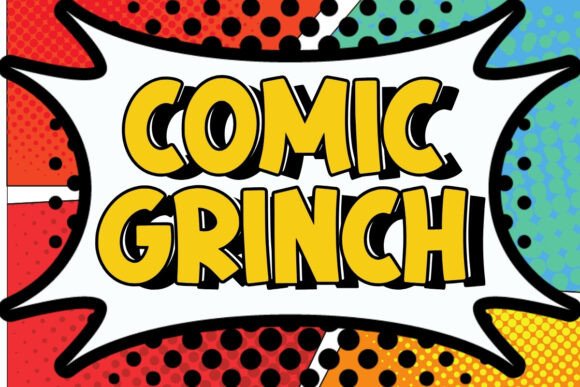
Introducing Comic Grinch Font: The Ultimate Display Font for Fun and Friendliness
Are you tired of using the same old fonts for your designs? Do you want to add a touch of fun and friendliness to your creative projects? Look no further than the Comic Grinch Font! This beautiful display font is designed to bring a smile to your face and make your designs stand out from the crowd.
What is Comic Grinch Font?
Comic Grinch Font is a unique and playful display font that is perfect for adding a touch of whimsy to your designs. With its bold and bubbly letters, this font is sure to grab attention and make your projects shine. Whether you’re working on a children’s book, a poster, or a social media graphic, Comic Grinch Font is the perfect choice.
Characteristics of Comic Grinch Font
So, what makes Comic Grinch Font so special? Here are just a few of its key characteristics:
- Fun and Friendly: Comic Grinch Font is designed to be fun and friendly, making it perfect for projects that require a playful touch.
- Bold and Bubbly: The font features bold and bubbly letters that are sure to grab attention.
- Display Font: Comic Grinch Font is a display font, making it perfect for headlines, titles, and other large text elements.
- Unique and Playful: The font has a unique and playful design that will add a touch of personality to your projects.
Benefits of Using Comic Grinch Font
So, why should you use Comic Grinch Font in your designs? Here are just a few benefits:
- Adds a Touch of Fun: Comic Grinch Font adds a touch of fun and friendliness to your designs, making them more engaging and enjoyable.
- Grabs Attention: The font’s bold and bubbly letters are sure to grab attention and make your projects stand out.
- Perfect for Kids’ Projects: Comic Grinch Font is perfect for kids’ projects, such as children’s books, posters, and activity sheets.
- Easy to Read: Despite its playful design, Comic Grinch Font is easy to read, making it perfect for large text elements.
How to Use Comic Grinch Font
Using Comic Grinch Font is easy! Here are a few tips:
- Use it as a Display Font: Comic Grinch Font is perfect for display text, such as headlines, titles, and captions.
- Pair it with Other Fonts: Pair Comic Grinch Font with other fonts to create a unique and interesting design.
- Use it for Kids’ Projects: Comic Grinch Font is perfect for kids’ projects, such as children’s books, posters, and activity sheets.
- Experiment with Colors: Experiment with different colors to find the perfect combination for your design.
Tips and Tricks for Getting the Most out of Comic Grinch Font
Here are a few tips and tricks for getting the most out of Comic Grinch Font:
- Use it Sparingly: Use Comic Grinch Font sparingly to make a big impact.
- Mix and Match: Mix and match Comic Grinch Font with other fonts to create a unique and interesting design.
- Pay Attention to Size: Pay attention to the size of the font to ensure it’s legible and easy to read.
- Have Fun: Most importantly, have fun with Comic Grinch Font! Experiment with different designs and ideas to find the perfect look for your project.
In conclusion, Comic Grinch Font is a beautiful display font that exudes fun and friendliness. With its bold and bubbly letters, this font is sure to grab attention and make your designs stand out. Whether you’re working on a children’s book, a poster, or a social media graphic, Comic Grinch Font is the perfect choice. So why wait? Download Comic Grinch Font today and add a touch of fun and friendliness to your designs!
- What is Comic Grinch Font? Comic Grinch Font is a unique and playful display font that is perfect for adding a touch of whimsy to your designs.